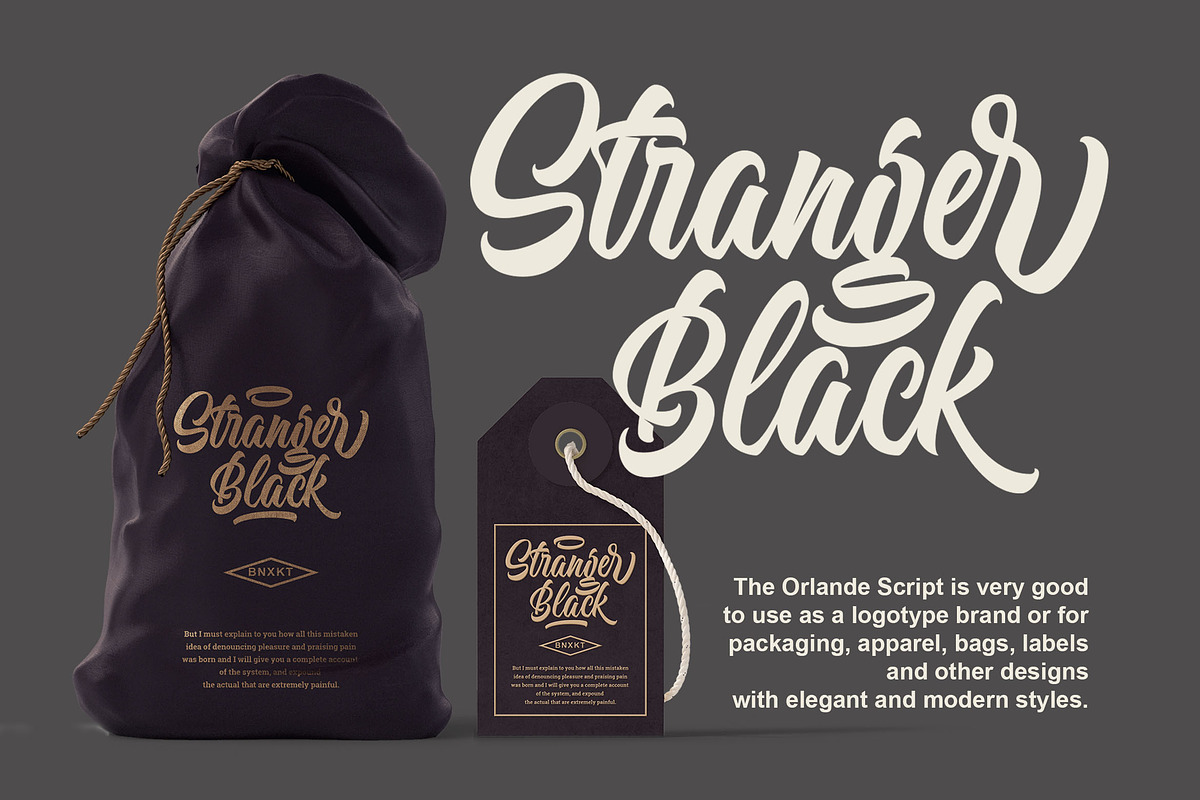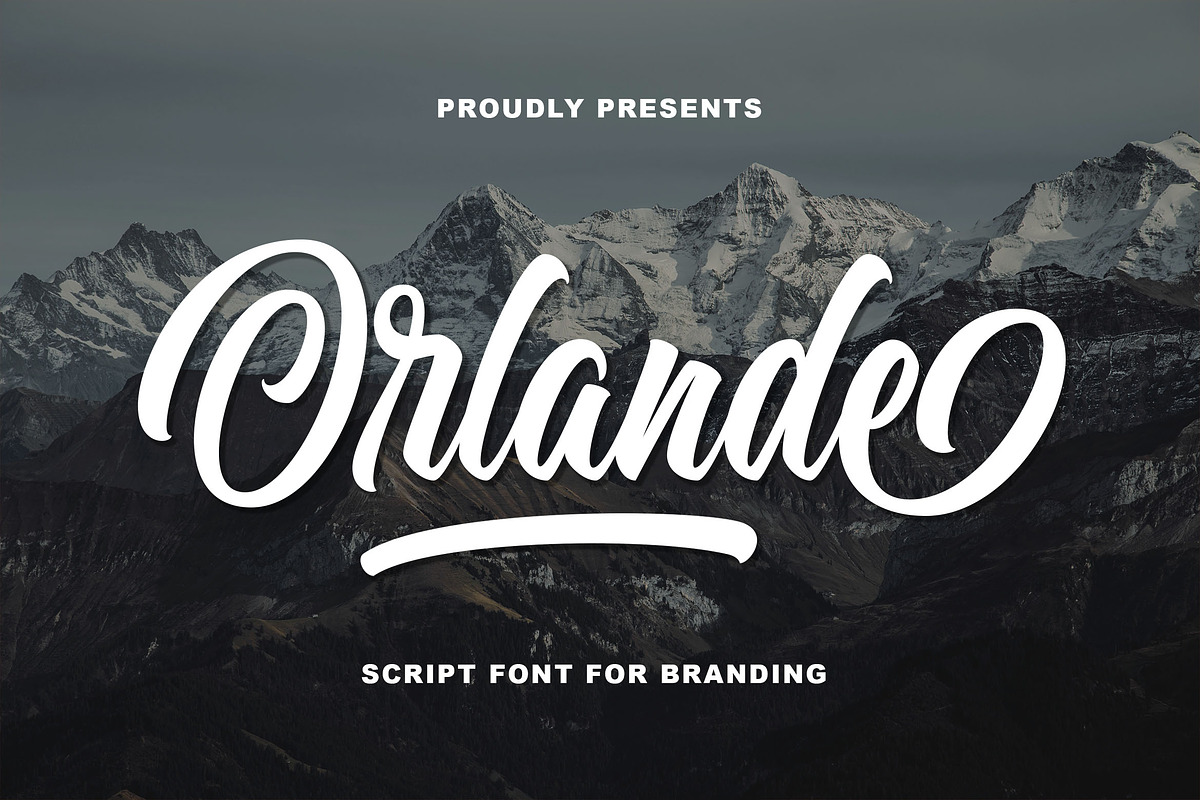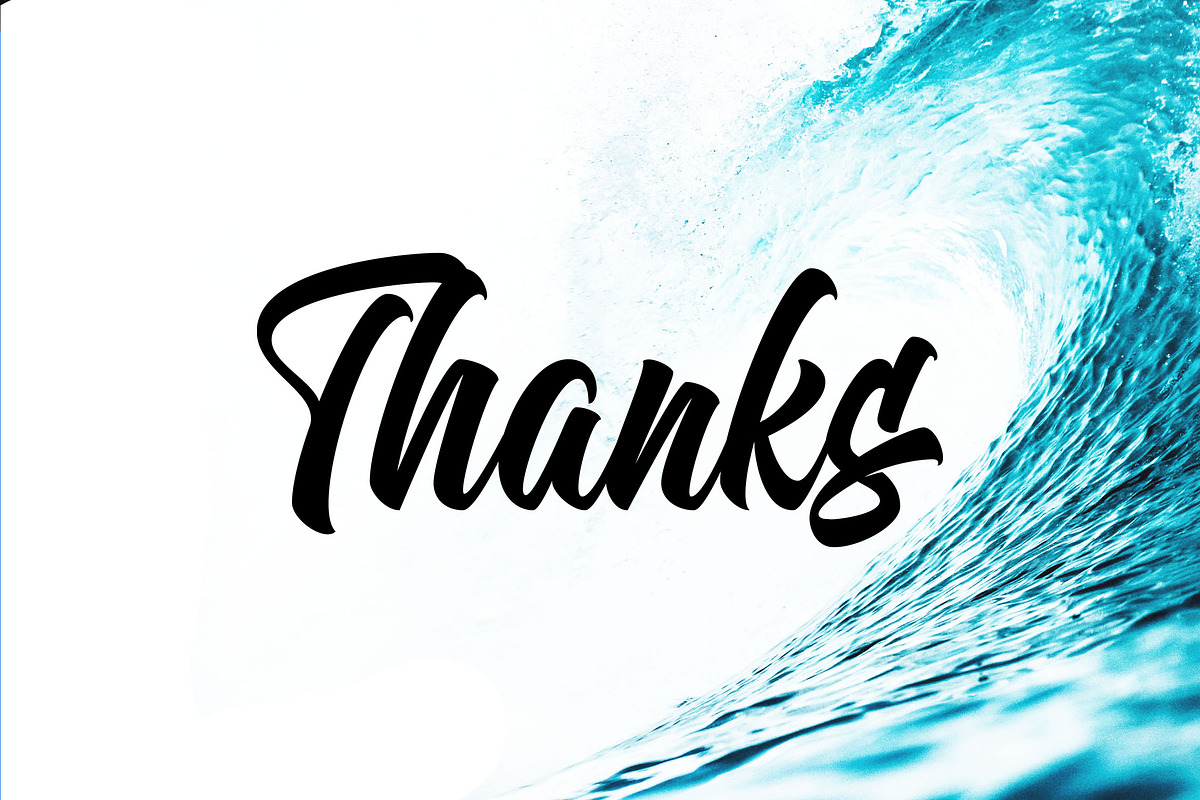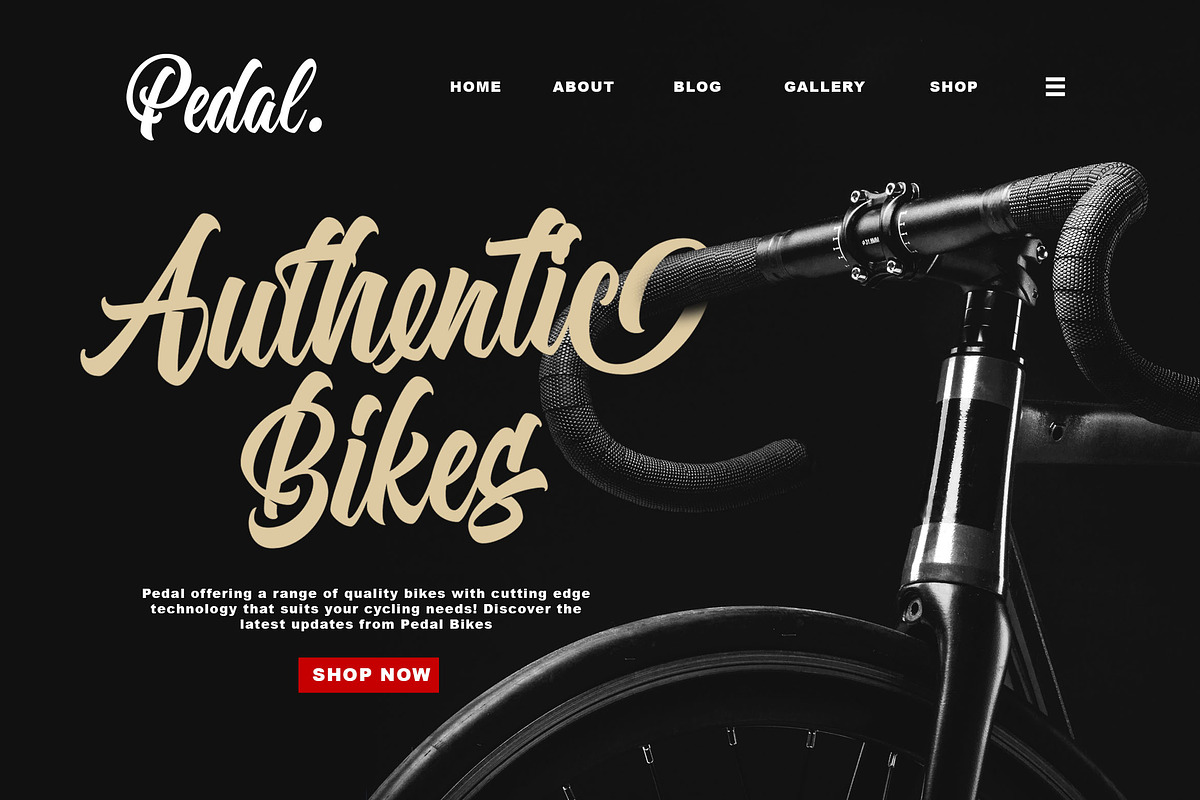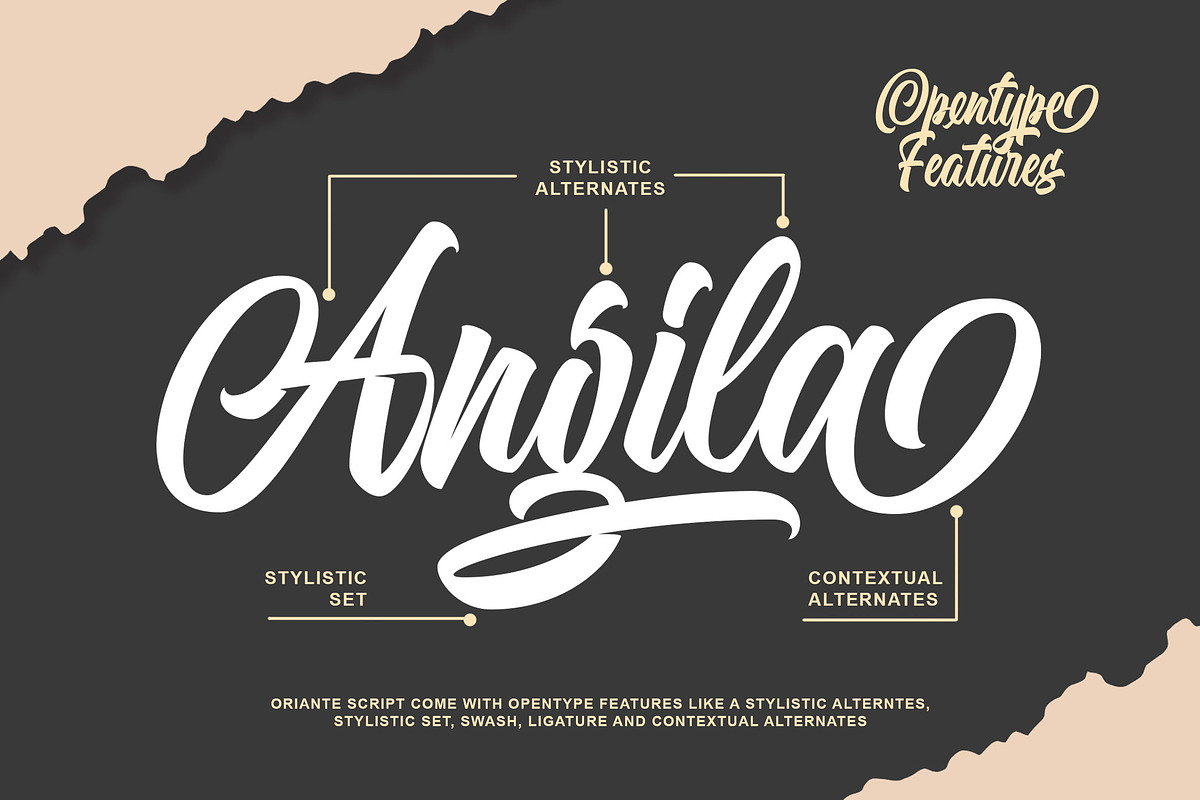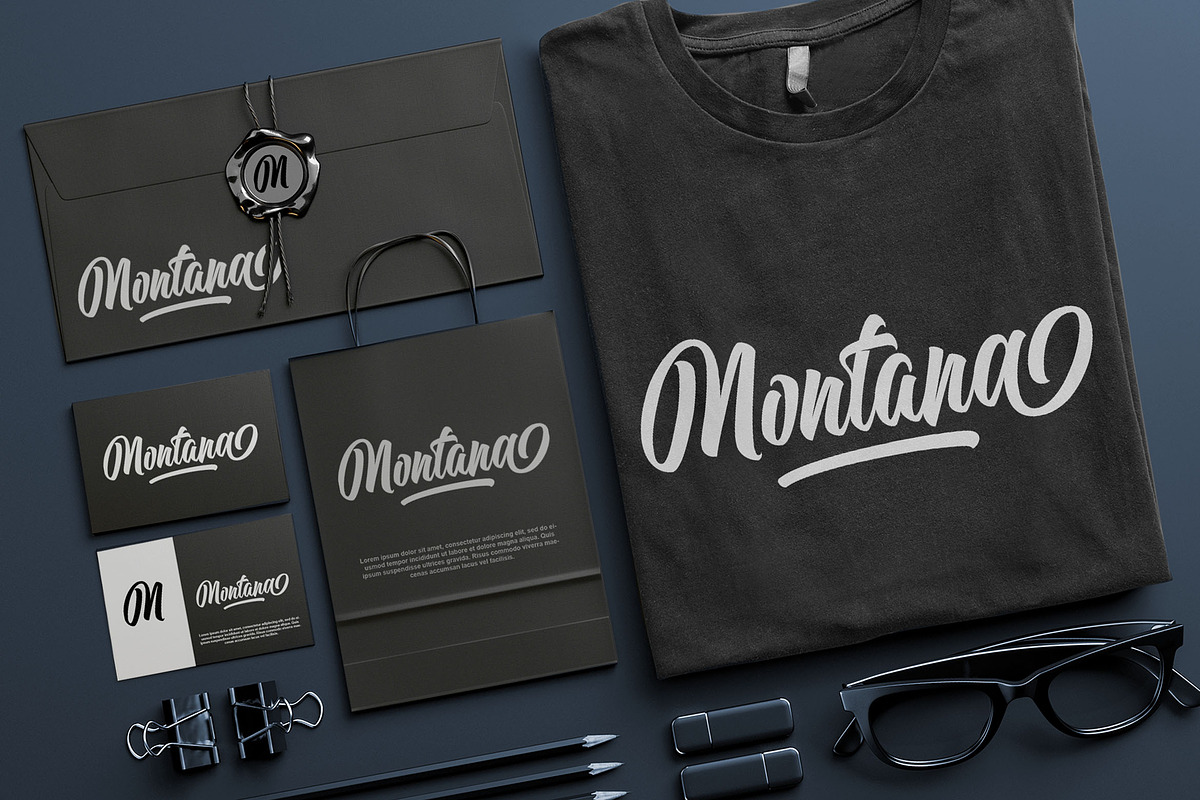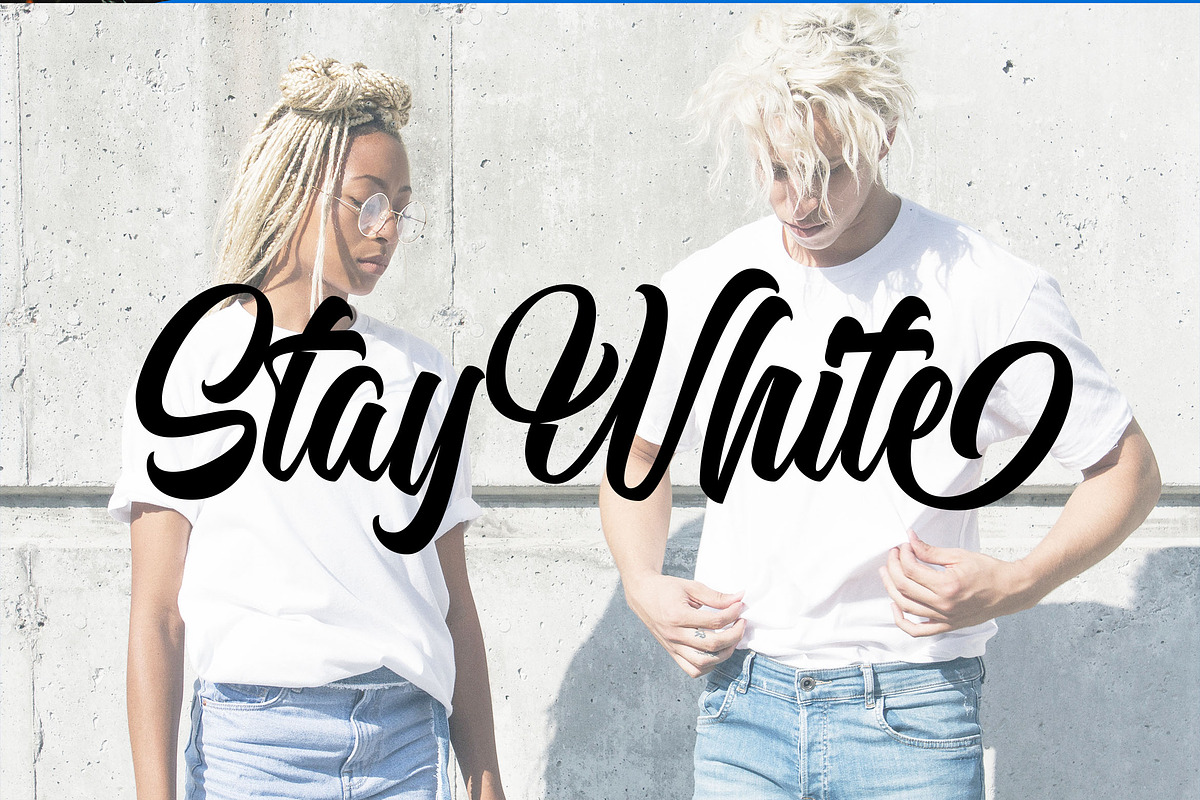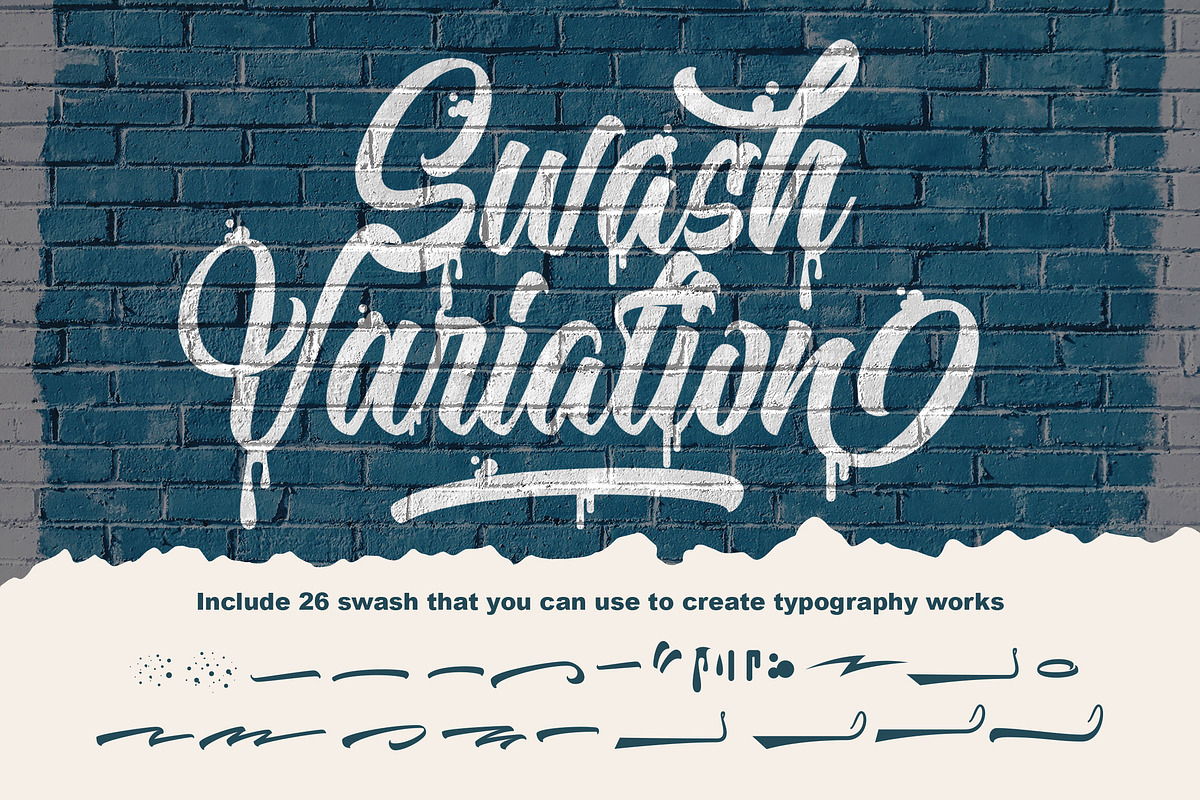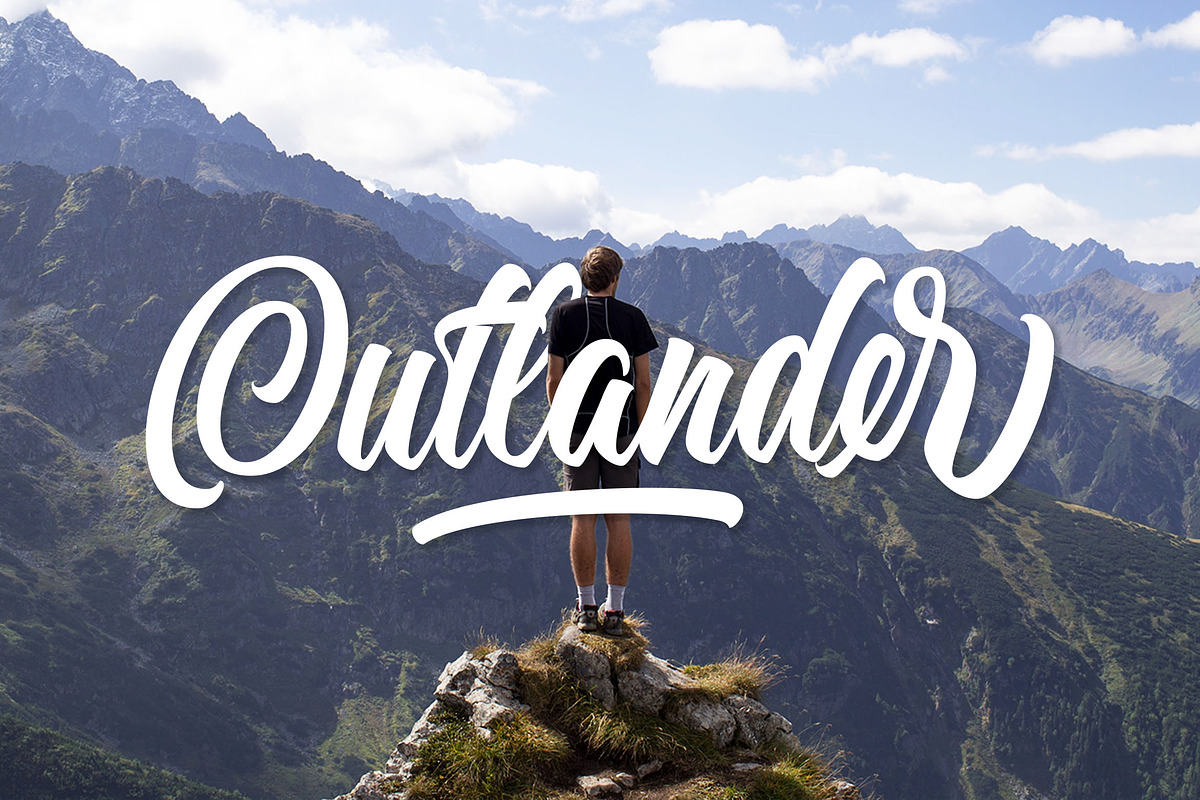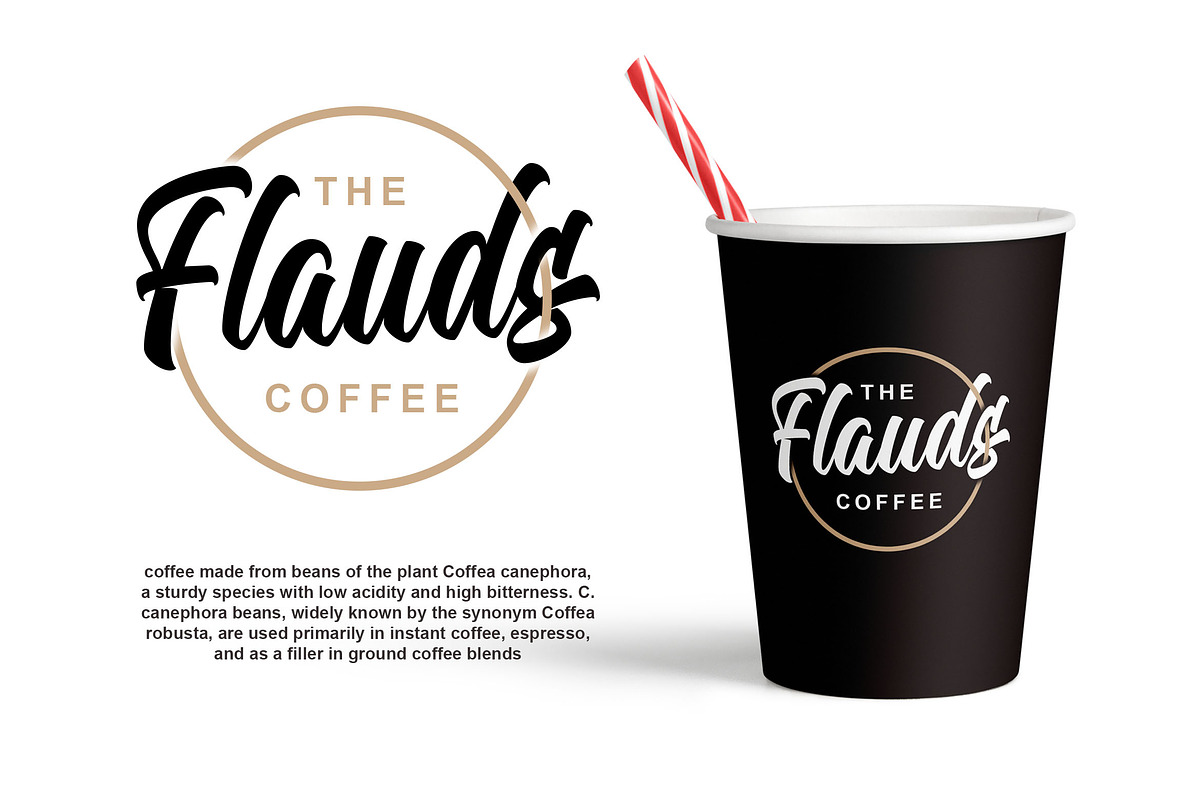
Orlande - Awesome for Branding
Introducing a new font called Orlande inspired by urban script fonts with sharp and beautiful letters that create fonts that are modern, tendy and elegant. Orlande came with opentype features such stylistic alternates, stylistic sets & ligatures good for logotype, poster, badge, book cover, tshirt design, packaging and any more.